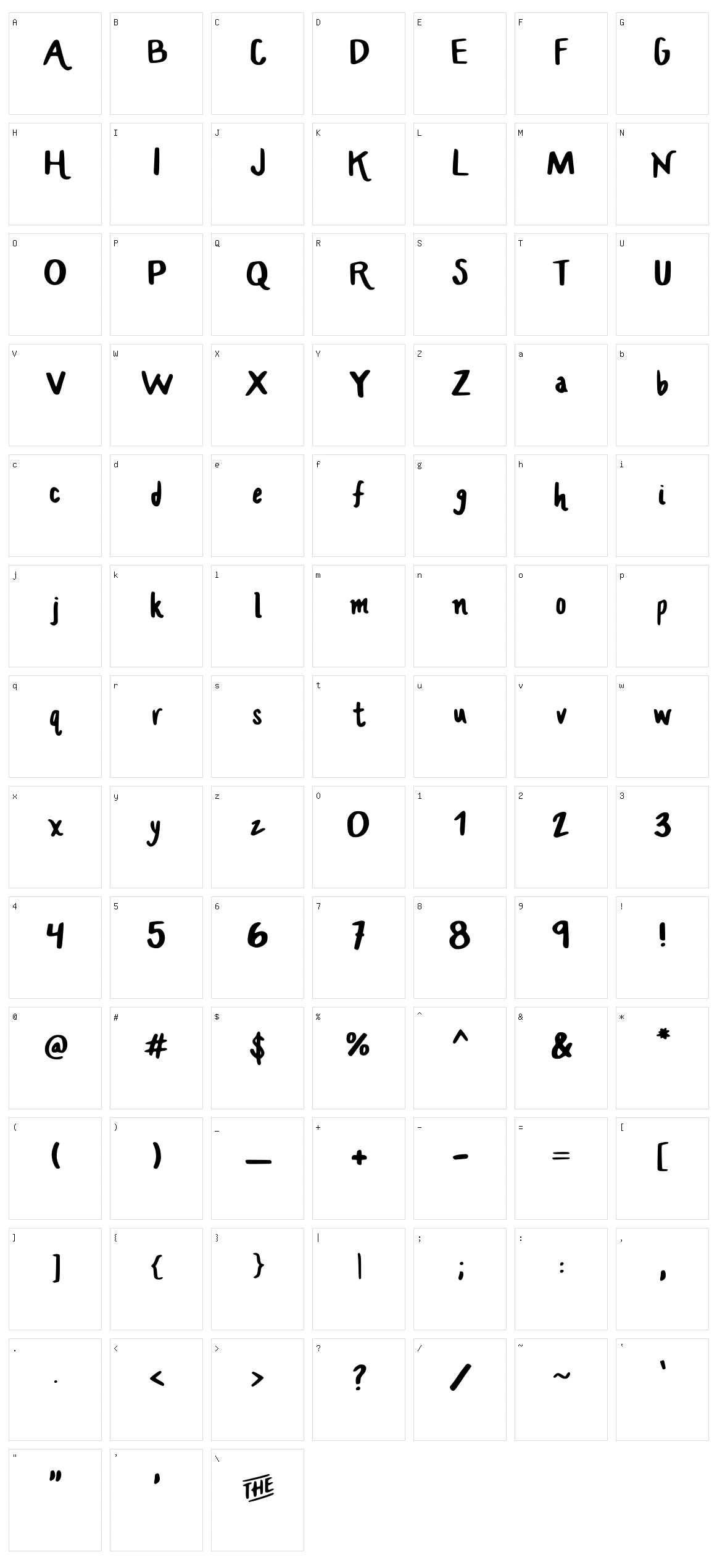
The free font HandCrafted Maddy is carefully designed by Maddy Baker, showcasing a thoughtful balance of creativity and usability and falls under the Script font style. When you download the ZIP file, it contains only 25.3 KB of font files, making it lightweight and quick to download. Please review the license details below to understand permitted usage and distribution rights. If license information is not available, we recommend using this font for personal projects only or contacting the author directly for commercial usage permissions.